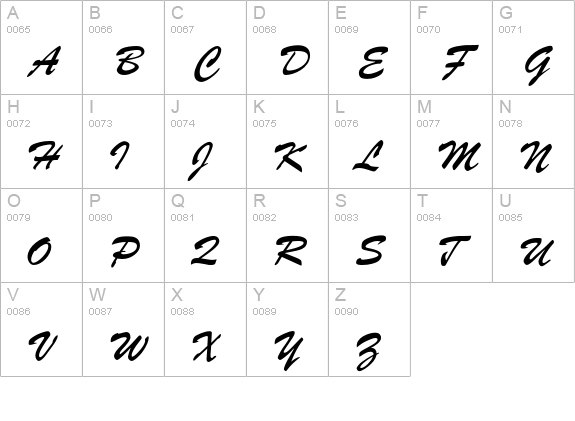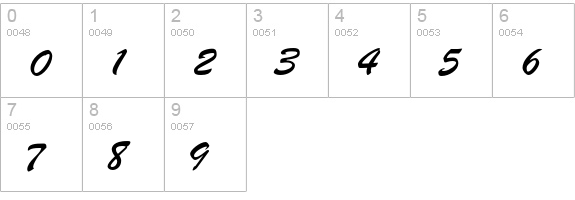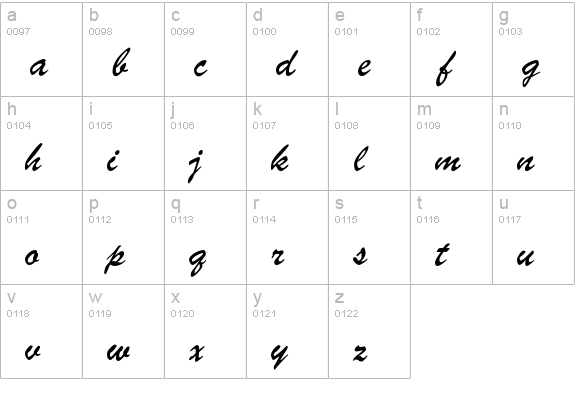
PT Parsek Cyrillic Font Details
PT Parsek Cyrillic is a stunning and versatile font that combines elegance with modernity. With its sleek and refined design, it is perfect for a wide range of projects, including branding, advertising, and graphic design. This font features a unique blend of classic and contemporary elements, making it suitable for both traditional and cutting-edge designs. Its clean and crisp lines give it a professional and polished look, while its subtle curves add a touch of sophistication. One of the best features of PT Parsek Cyrillic is that it is available for free download at FontsMarket.com. This means that you can easily access this font and use it in your projects without any cost. Whether you are a professional designer or a hobbyist, this free font offers you the opportunity to enhance your work with a high-quality and visually appealing typeface. The versatility of PT Parsek Cyrillic is further highlighted by its extensive character set, which includes all the letters of the Cyrillic alphabet. This ensures that you can use this font to create stunning designs in various languages, such as Russian, Ukrainian, and Bulgarian. Whether you need a font for a logo, a poster, or a website, PT Parsek Cyrillic is sure to impress with its elegant and contemporary style. Its readability and legibility make it suitable for both large and small text, ensuring that your message is conveyed effectively. In conclusion, PT Parsek Cyrillic is a free font that offers a perfect combination of elegance, modernity, and versatility. Its availability for free download at FontsMarket.com makes it easily accessible to all designers and enthusiasts. Enhance your projects with this stunning font and create visually striking designs that leave a lasting impression.